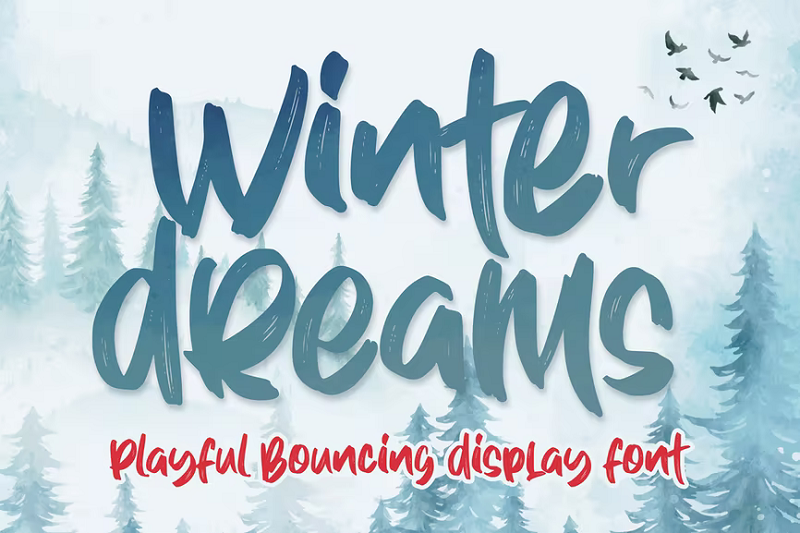
Looking for the best winter fonts to inject a little holiday spirit into your designs this season? You’re in the right place!
Below, we’ve listed 29 of the coolest typefaces that are perfect for holiday cards, Christmas displays, and all your other winter-themed designs.
All of the wintry fonts on this list have been designed by professionals and hand-selected by us. They all evoke the cold season and conjure up images of snow, ice, and chestnuts roasting by an open fire.
29 Best Winter Fonts
1. The Winter – Our Top Pick
The Winter Font
Our top pick goes to The Winter, a stylish, understated calligraphy font. It’s one of the most popular winter fonts on Envato Elements and comes with over 300 glyphs, with alternates including swash, contextual alternates, and stylistic sets.
Why it’s our top pick
The main reason this is our overall favorite winter font is because of how versatile and tasteful is. The handwritten letterforms are elegant and modern, with flourishes like long tails and swashes that add character without impacting readability.
It’s simple and clean and doesn’t look over-the-top or tacky like many other winter-themed fonts, so it’d work well in many different designs (especially holiday cards).
2. Winter Dreams
Next up, we have Winter Dreams by Figuree. This is a playful, bouncing display font, with natural brush strokes and a wintry design. It doesn’t take itself as seriously as our top pick and doesn’t have any of those exaggerated flourishes, but it’s fun and stylish.
3. Winter Kingdom
Winter Kingdom Font
Winter Kingdom is an all-caps winter font that uses chunky, block letters. It’s very fun, cartoonish, and friendly-looking, so I can see it working well in child-facing designs, such as on a winter-themed children’s book cover or mobile game.
4. Snowy Font
Snowy Font
Snowy is one of the most unique winter fonts we’ve come across. It uses bold, block letters with decorative floral touches and intricate details like snowflakes that make it look extra magical — so it’s perfect for Christmassy designs
Snowy uses the new OpenType SVG font format (i.e. Color font). This format allows the designer to get really creative and add more detail to the letters than in traditional formats.
However, it also means that you can only open it on Photoshop CC 2018+ or Illustrator CC 2018+. If you want to open it up in other software, you’ll need to use the included vector AI & EPS file version instead.
5. Christmas Story
Christmas font
If you’re working on a Christmas-themed design project, check out Christmas Story. This festive font uses a modern handwritten design with beginning and ending swashes. It’s simple, elegant, and—best of all—free!
6. Snow Color Font
Snow is another SVG OpenType/Color font that only works in modern versions of Photoshop and Illustrator. It comes in two versions: a winter theme and a snow theme. Both utilize a cool 3D effect that makes them jump off the page. They’re super detailed, with a rough texture that makes them look as if they’ve been cut out of blocks of snow and ice.
7. Under The Snow Font
Under The Snow is a simple, snow-inspired, layered typeface. The download pack comes with free font versions: Regular, Style 01, Style 01 inner, and Style 02. Each of these has a slightly different design. Style 02 is our favorite and is designed to look like the letterforms are slowly filling with snow as it falls from the sky. You can add the layered inner font to any of the others to create cool effects.
8. Fronzy
Fronzy is another playful winter font. It’s a rough typeface with chunky letterforms and wavy strokes that make it look vaguely cloud-like. It has an icy cold aesthetic that’d work great on all kinds of winter designs. It also comes with uppercase and lowercase letters, symbols, punctuation, numerals, alternates, and multilingual support.
9. Winter Soda
Winter Soda Font
Winter Soda is a modern, handwritten winter font with a natural touch. It’s feminine and elegant and would work well on greeting cards, logos, book covers, and stationery.
10. Christmas Time
Christmas Time Font
Here’s another one of the best Christmas fonts that you’ll find anywhere. Christmas Time is a free typeface from Lukasz KuIakowski’s. The designer clearly put a lot of effort into the font and has added intricate details like stars within each stroke to make it look extra festive.